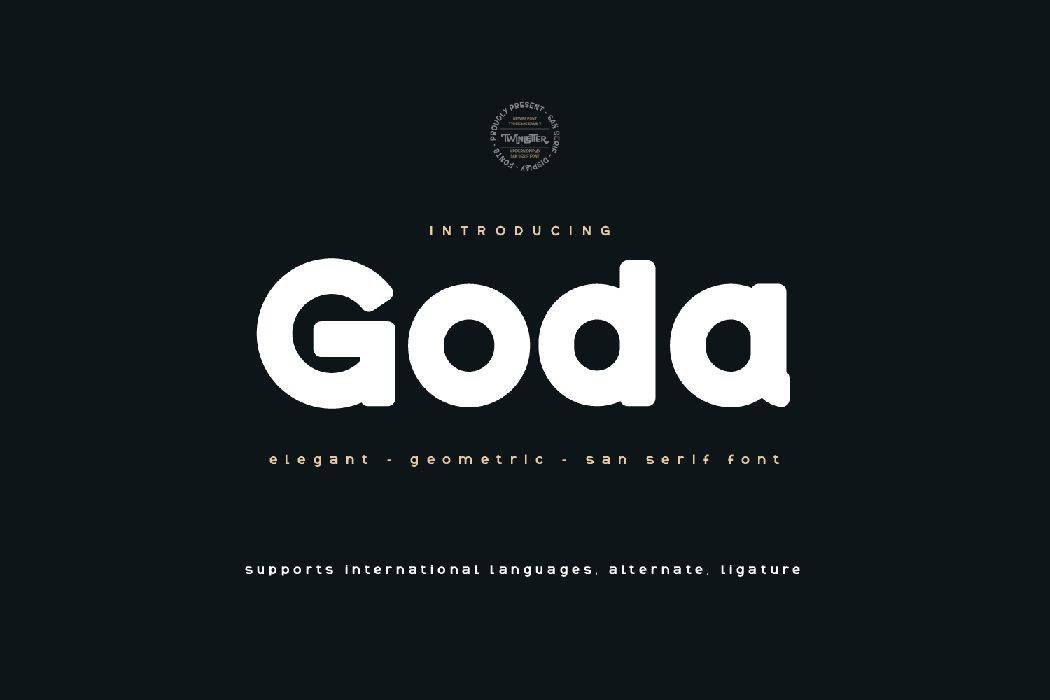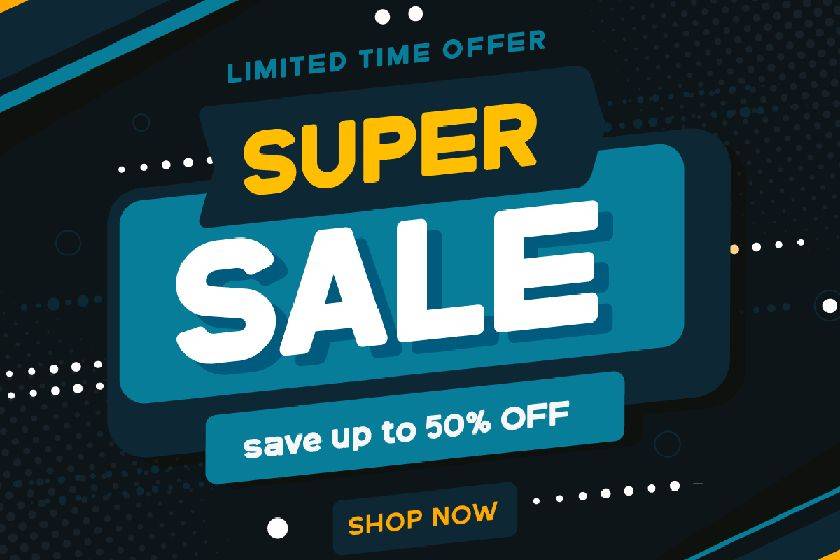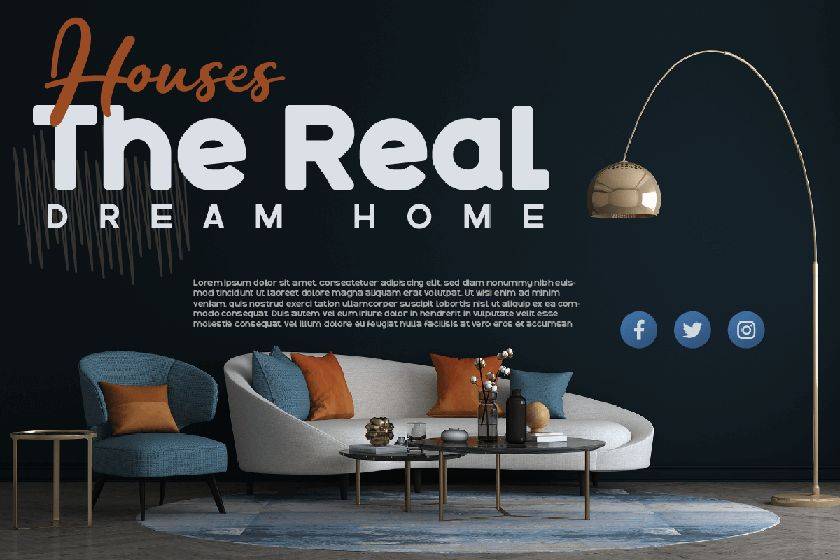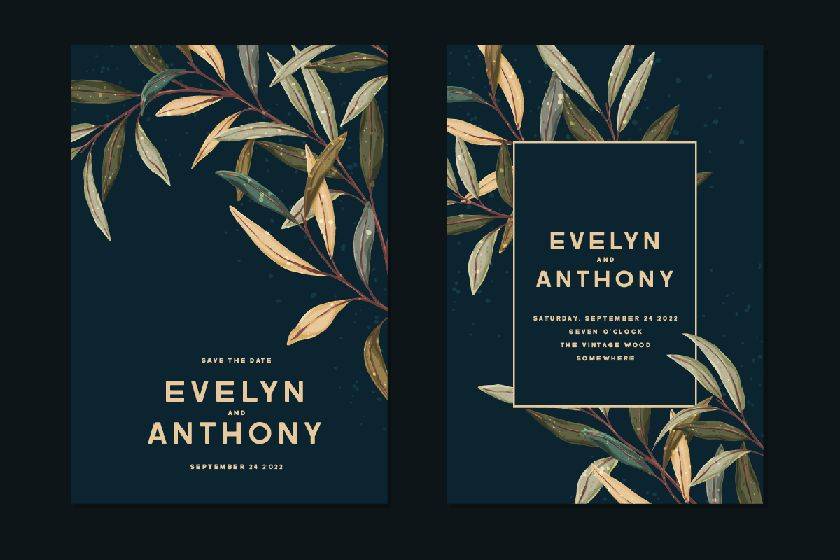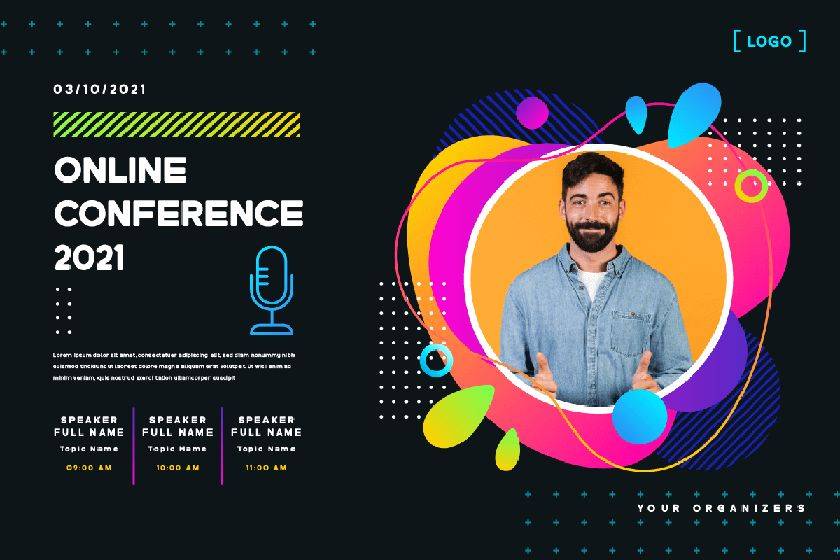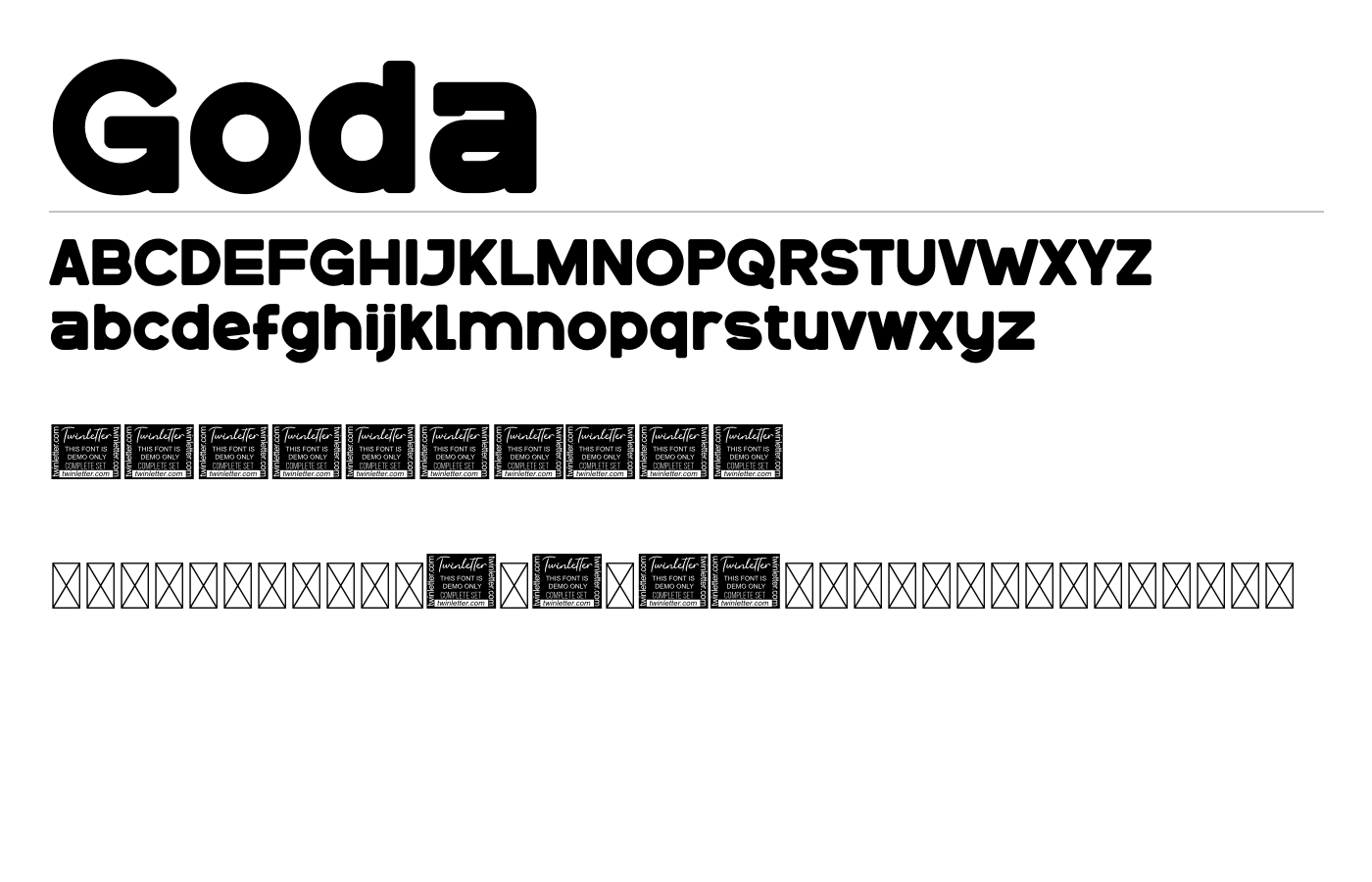
Goda is a bold, modern sans-serif font with a strong, geometric structure and rounded corners that give it a friendly yet confident feel. Its clean lines and high x-height make it highly legible and versatile, ideal for striking headlines, branding, and contemporary design projects seeking a fresh and approachable personality.